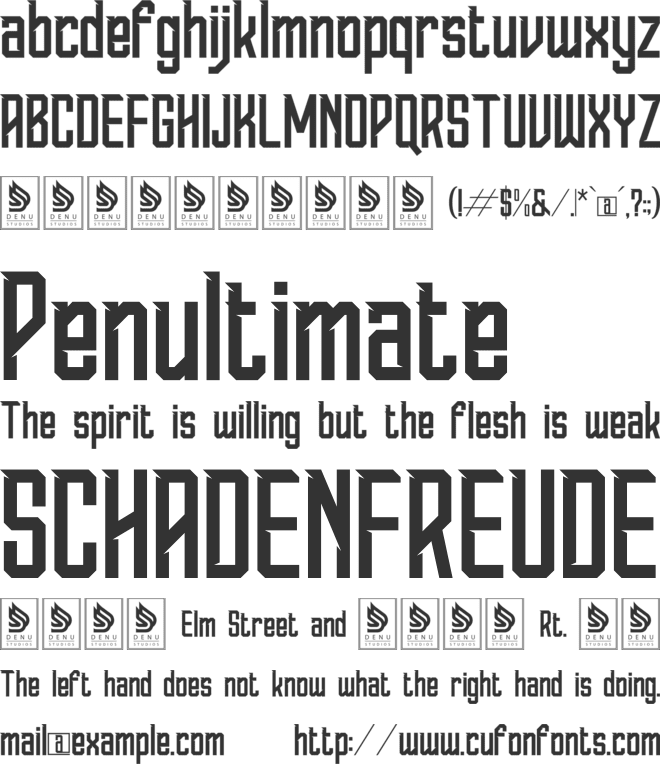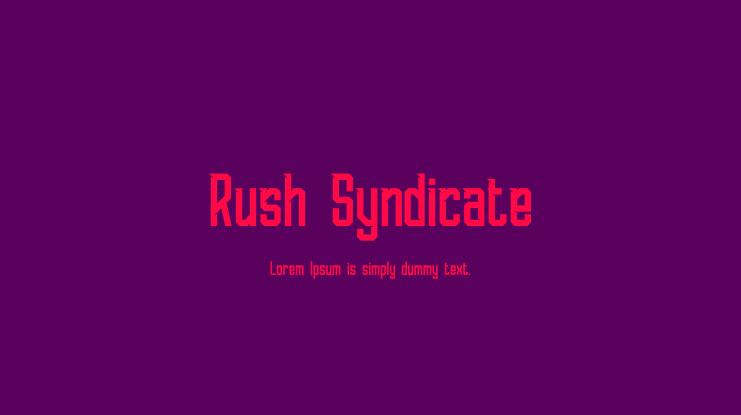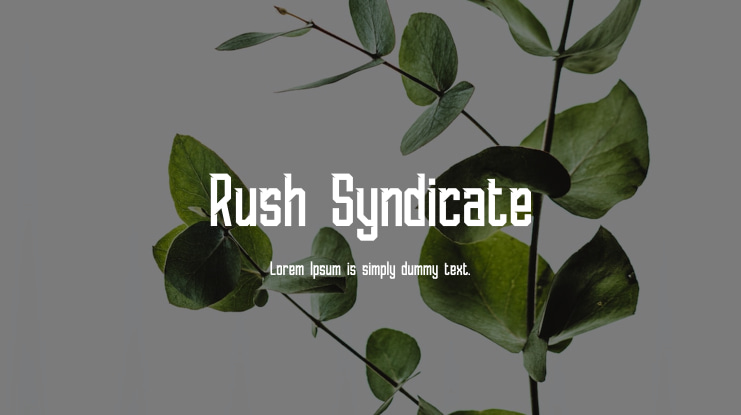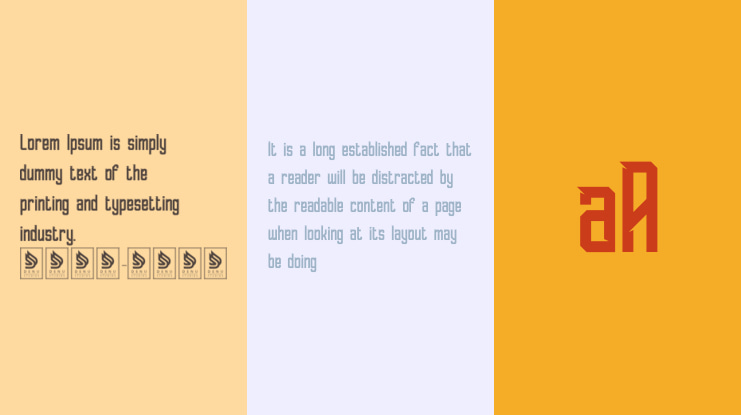
Rush Syndicate | Condensed Racing Font product packaging, mugs, quotes, posters, shopping bags, t-shirts, book covers, name card, invitation cards, greeting cards, label, photography, watermark, special events, and all your other lovely projects that need a Condensed Racing Font taste.